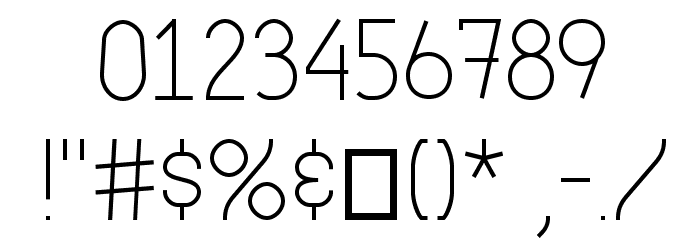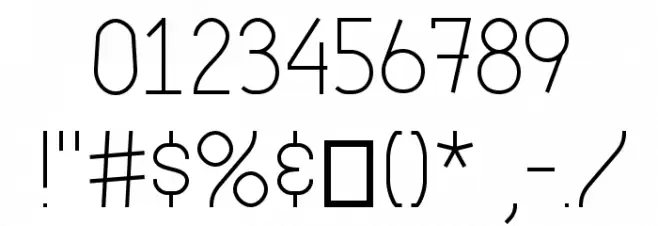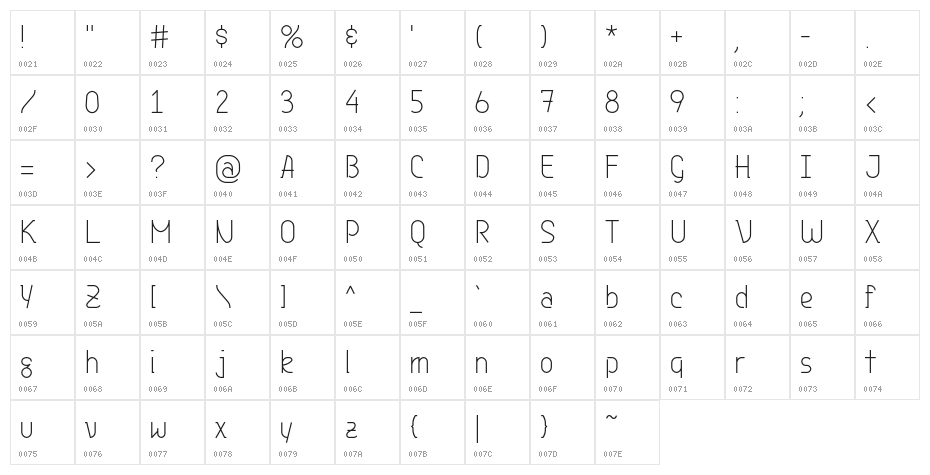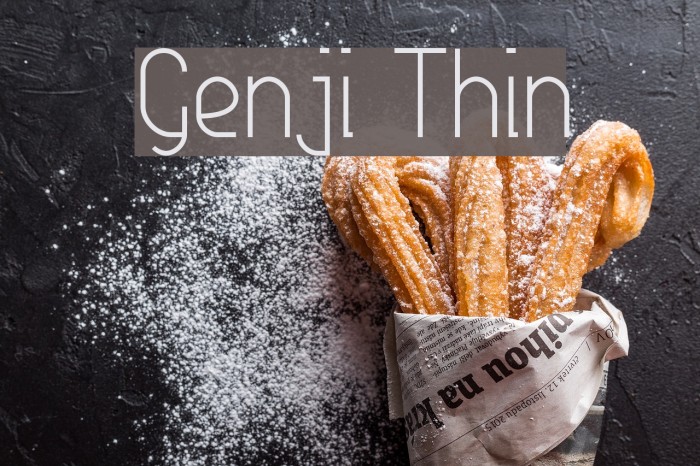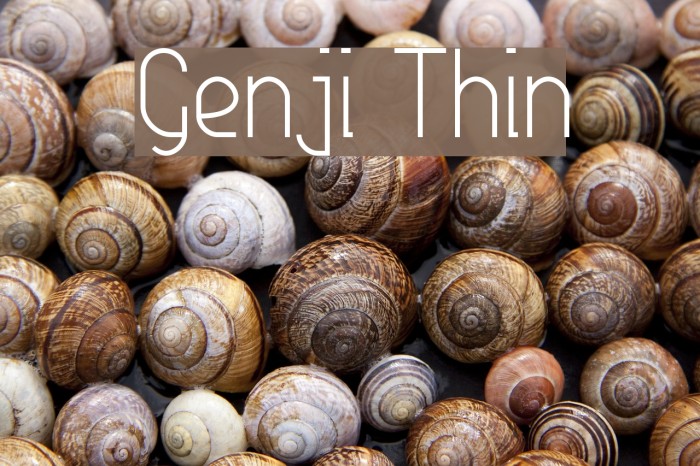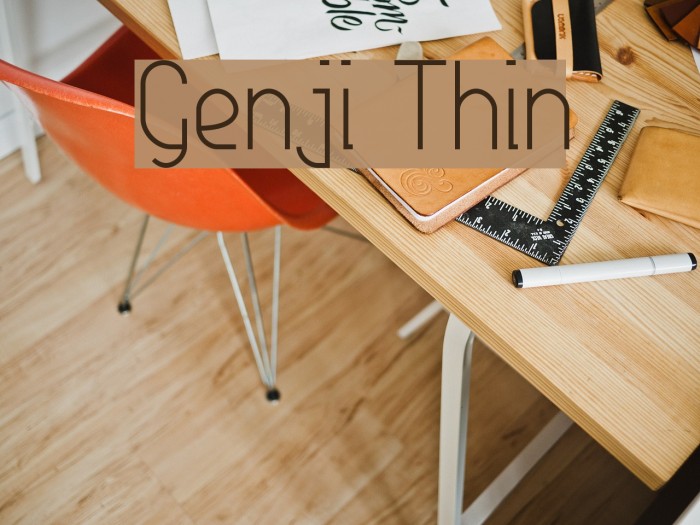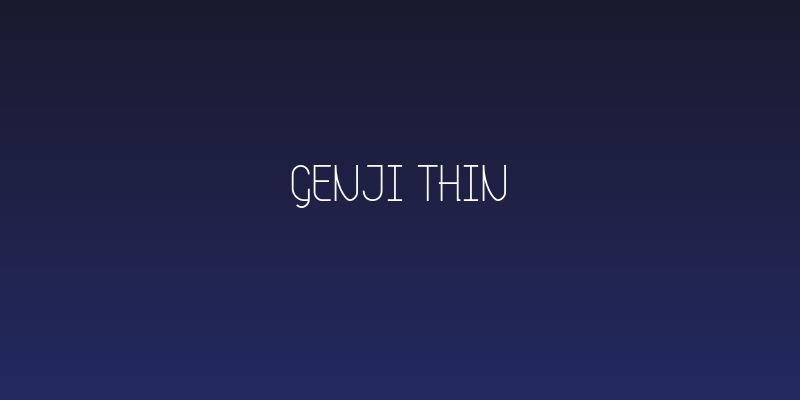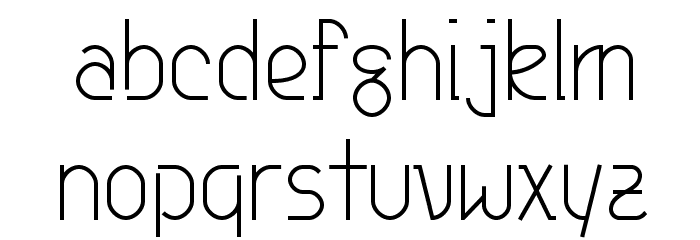
Genji Thin Font
Genji Thin Description
This font features a sleek, modern design with a geometric and minimalist aesthetic. The characters are constructed with clean, straight lines and subtle curves, giving it a contemporary and sophisticated look. The uppercase letters are tall and narrow, while the lowercase letters maintain a consistent height, creating a harmonious balance. The numerals are clear and easy to read, matching the overall style of the alphabet. Special characters are distinct and well-integrated into the font's design. The thin strokes and open spacing contribute to its airy and elegant appearance, making it suitable for a variety of design applications.
| Use Case | Headlines, Logos, Editorial design |
| Proposed Projects | Ideal for modern branding, minimalist posters, tech-related designs, and clean editorial layouts. |